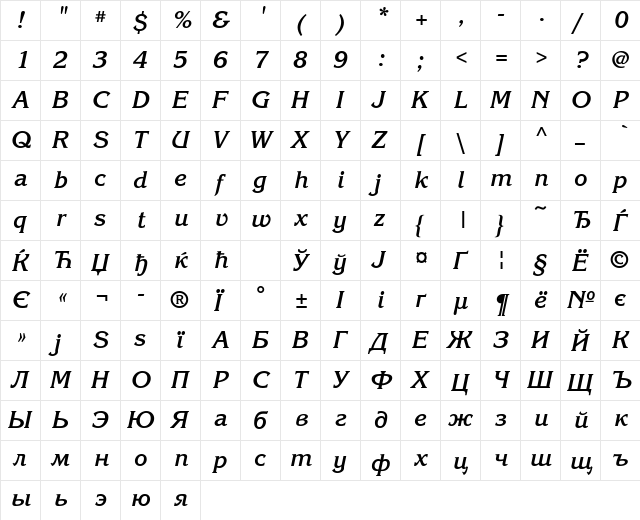
KorinnaCTT BoldItalic
Design Context for KorinnaCTT Typeface
KorinnaCTT takes a measured approach to typography — its balanced proportions and neutral character make it a reliable workhorse for both digital and print work. Its italic angle brings a sense of urgency and motion to the letterforms. The heavy weight commands attention and anchors typographic hierarchies.
Pro Tip: Use KorinnaCTT for emphasis, pull quotes, and subheadings where its slanted energy can add rhythm to the layout.